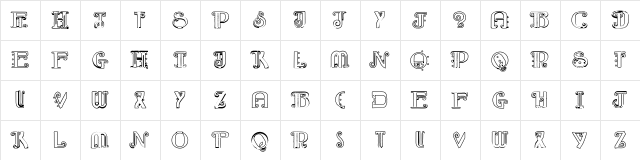
Rebimboca Outline is built around its visual character rather than neutral utility - its distinctive forms are designed to make an impression at display sizes.
Font Pairing: Pair with a clean neutral sans-serif for body copy to let Rebimboca Outline's character lead without overwhelming the composition.
Pro Tip: Use Rebimboca Outline exclusively at display sizes - it was designed to be seen, not read at length. Let a neutral companion handle body copy.